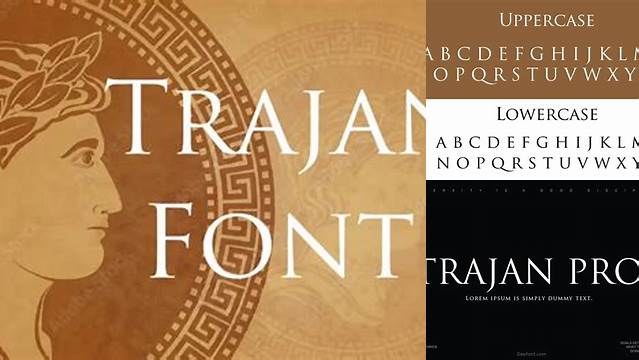
Are you on the hunt for a classic, timeless font that screams elegance and authority? Well, look no further, because the Trajan font family is here to save the day! And the best part? You can score a free download! This comprehensive guide will walk you through everything you need to know about this iconic typeface, from its history and design to where you can snag a copy and how to use it like a pro. So, buckle up, guys, because we're diving deep into the world of Trajan!
What is the Trajan Font? Unveiling a Timeless Classic
Alright, let's get down to brass tacks. The Trajan font is a serif typeface designed by Carol Twombly in 1989. Inspired by the inscription on Trajan's Column in Rome, it's a font that's been around the block (literally!) and has made its mark on everything from movie posters to book covers. Its clean lines, elegant serifs, and classic proportions give it a distinctly Roman feel. You know, the kind of font that makes you feel like you're reading something important, even if it's just the grocery list. The typeface is known for its ability to communicate sophistication and authority. The Trajan font, with its historical roots, is not merely a collection of letters; it's a visual embodiment of history, art, and the evolution of typography. Trajan's design pays homage to the classical Roman letterforms of the early 2nd century, meticulously carved onto Trajan's Column in Rome. This connection to history is a primary factor in the font's enduring popularity. The font, with its careful balance and design, has become a popular choice for applications seeking a feeling of authenticity and historical significance, because of this association. Its readability is also a key factor in its appeal. The typeface's distinct letterforms make it accessible and inviting for reading, ensuring the text is both aesthetically pleasing and easy to understand. Trajan has found its place in numerous fields, from branding to publications. Its design is characterized by the elegant serifs, which are small strokes added to the end of the letters. They offer the text a distinguished and classic look. The font's letterforms also include its distinct proportions that make it readable and visually pleasing. The design of the font shows a blend of history, beauty, and practical application. Understanding the background of the Trajan font is important for anyone considering using it. The font is more than just a typeface; it is a connection to the past and an embodiment of design and cultural significance. The font can be used on branding, publications, and various other types of designs. The Trajan font continues to be a favorite for designers and creatives because of its ability to convey a feeling of heritage and sophistication, which contributes to its lasting popularity. The font's legacy continues, with new applications and versions emerging. Designers can use the Trajan font family to improve their works by knowing its details and background.
Trajan Font Styles and Variations: Exploring the Family
Okay, so you've got your Trajan font free download, but what's the deal with all the different styles and variations? The Trajan font family has a few different options, each with its own unique flavor. Trajan Pro is the most common version, and it comes in a variety of weights, like regular, bold, and italic. This gives you a good amount of flexibility when it comes to designing. You can use the regular weight for body text, the bold for headings, and the italic for emphasis. This level of variation enables you to create a diverse range of designs, each conveying a distinct visual message. Within the Trajan family, you can find variations such as Trajan Bold, which provides a bolder look for titles and headlines, ensuring they grab immediate attention. There's also Trajan Italic, which adds a touch of elegance to your text while maintaining the classic appeal of the original font. By exploring the range of variations, you can create designs that are both beautiful and functional. The Trajan font family offers a range of styles, providing designers with diverse options. This means you can use Trajan for any situation. You can pair it with other fonts, experiment with different weights, and even customize it to fit your brand. By understanding the different styles and variations, you can use the font to its fullest potential, creating designs that are both visually appealing and effective in communicating your message. Experiment with these variations to discover the one that aligns with your aesthetic vision and project needs. Knowing the variety of styles, it's easier for the user to select the font that suits their design requirements.
Using the Trajan Font: Best Practices and Design Tips
Alright, you've got the font, you've got the styles, now how do you actually use the Trajan font? Let's talk design! First, consider the context. Trajan works best when you want to convey a sense of history, authority, or elegance. Think movie posters, book covers, and branding for luxury products. Don't use it for everything! Too much Trajan can feel overwhelming and even a bit cliché. Remember, it's a strong font, so use it strategically. As with any font, readability is king. Make sure your text is easy to read, especially in smaller sizes. Pay attention to the spacing between letters and lines (known as kerning and leading, respectively). If the text feels cramped, it'll be tough to read, no matter how beautiful the font is. In addition, think about how the font interacts with other elements in your design. The font can pair beautifully with serif fonts, which provide visual contrast while preserving the overall feeling of sophistication. In design, it's important to create visual hierarchy. Using the Trajan font can help with this, as the font's bold variations provide a strong visual weight that naturally draws the eye. It can be a great option when you want to make a title or heading stand out. Consider the color and background you are using. Dark colors paired with a light background typically work best for readability, ensuring the text stands out. However, this can vary based on your project requirements. When integrating the font into your designs, remember it's important to strike a balance between visual appeal and functionality. This means choosing the appropriate weight and size for the purpose, and considering the background to ensure readability. The font is often used for logos. The clean lines and simple serifs make it appropriate for conveying authority and timelessness. These logos often make a strong first impression and communicate a sense of trust. This creates a lasting impression. The Trajan font adds a touch of formality to logos, so it's important to consider if this is the right fit for the message you are trying to communicate. So, consider how your design will be viewed and the message you are trying to convey. Proper use of the font will guarantee that your audience will remember it. It's a font that's going to make your project memorable. The user must explore the design tips and best practices to get the most out of this versatile font. This helps the user create designs that captivate and communicate their message effectively. Remember to keep the target audience and the message in mind.
Trajan Font in Design: Real-World Examples and Inspiration
Need some inspiration, guys? Let's look at some real-world examples of the Trajan font in action. Movie posters are a classic! You'll often see it used for titles, especially in historical dramas or epics. Think about movies like Gladiator or Titanic. The font instantly sets the tone, giving a sense of grandeur and drama. Book covers are another great place to spot Trajan. It's perfect for titles that want to convey a sense of history, mystery, or sophistication. You'll often see it on historical fiction, biographies, or even classic literature. The Trajan font family has been adopted across different industries, each using the font to convey a unique visual message and brand identity. The font is ideal for logos that want to convey professionalism and history. It is used in several fields, from branding to publishing. This is because of its flexibility, which makes it possible for the font to be adapted to different contexts. It is often used in formal contexts, making it a good choice for brands that want to convey authority or tradition. The font is also suitable for posters, as it is readable and has a clean design. Its versatility helps it to be used in different scenarios. The versatility of the font family allows it to be used on any design. The font is not just for the digital world. It can be found on physical products, from apparel to packaging. This shows its adaptability. Knowing how other designers have used the font can provide the user with inspiration to get started. By knowing these things, the user is able to create designs that will have an impact and be successful.
Conclusion: Unleash the Power of Trajan!